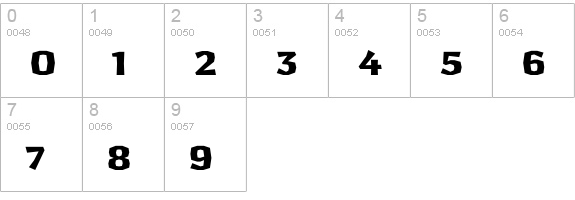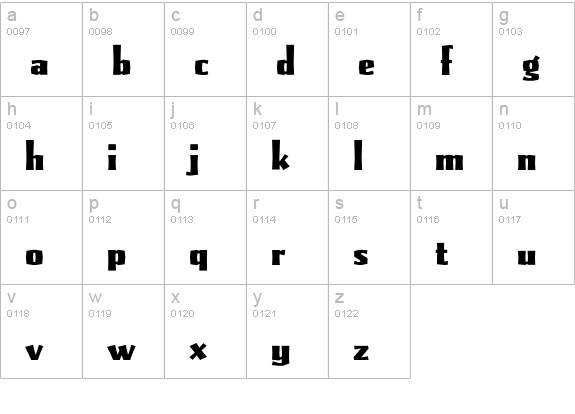
Pilsner-Black Font Details
Pilsner-Black is a maximum-weight, dramatic variant in the Pilsner typeface family \xE2\x80\x94 well suited to maximum-impact headlines, posters, and packaging.
Pilsner-Black font is a bold and elegant typeface that exudes sophistication and professionalism. With its clean lines and strong presence, this font is perfect for adding a touch of class to any design project. Whether you're creating a sleek logo, designing a modern website, or crafting eye-catching advertisements, Pilsner-Black font will make a lasting impression. What sets Pilsner-Black font apart is not just its stunning aesthetics, but also its versatility. This font is incredibly adaptable, making it suitable for a wide range of applications. Its bold and commanding presence makes it ideal for headlines and titles, while its clarity and legibility ensure readability even at smaller sizes. The Pilsner-Black font is freely available to download at FontsMarket.com, allowing you to incorporate this impressive typeface into your projects without any hassle. Its availability for free ensures that designers and creatives of all backgrounds can access and utilize this remarkable font, making it a valuable asset in your design arsenal. With Pilsner-Black font, you can effortlessly elevate your designs and captivate your audience. Its timeless appeal and modern flair combine to create a font that stands out from the crowd. Whether you're working on branding materials, packaging, or editorial designs, Pilsner-Black font will bring a touch of elegance and sophistication to your work. Don't miss out on the opportunity to enhance your designs with this exceptional font. Download Pilsner-Black font today from FontsMarket.com and unlock its full potential. Embrace the beauty of this typeface and let it transform your designs into works of art that leave a lasting impression.